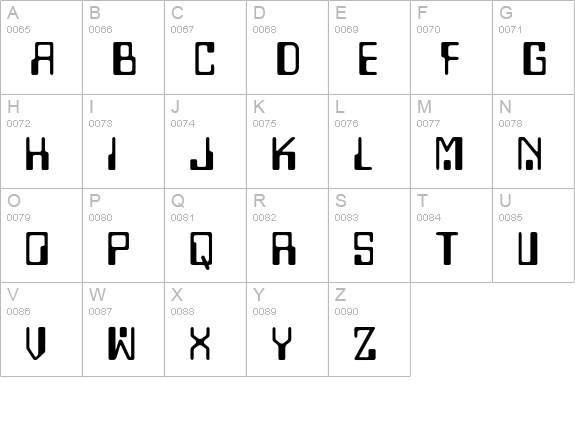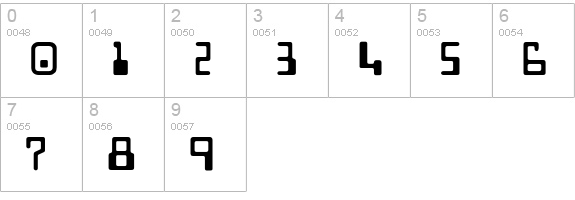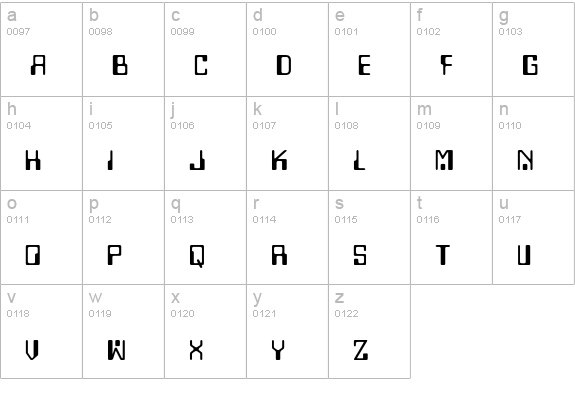
Checkbook Font Details
Checkbook font is a modern and sleek typeface that exudes elegance and sophistication. With its clean lines and sharp edges, this font is perfect for creating professional and stylish designs. Whether you're working on a business presentation, a wedding invitation, or a branding project, Checkbook font will elevate your work to new heights. The best part? Checkbook font is completely free to download at FontsMarket.com. You can easily access this versatile font and use it for all your design needs without breaking the bank. Don't miss out on the opportunity to enhance your projects with the timeless beauty of Checkbook font. Download it today and start creating stunning designs effortlessly.